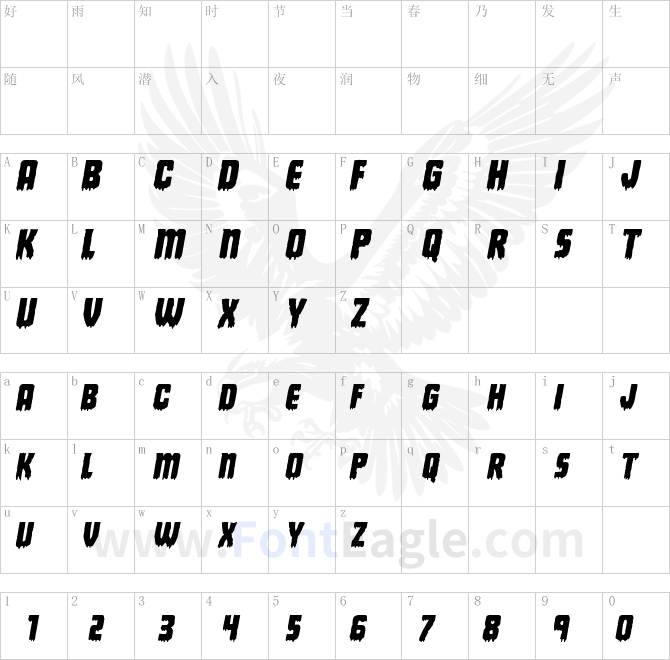
Deathblood-Italic is a great font, widely used in graphic design, single-page menu design, poster design and other fields, and is deeply loved by designers.Deathblood-Italic download.